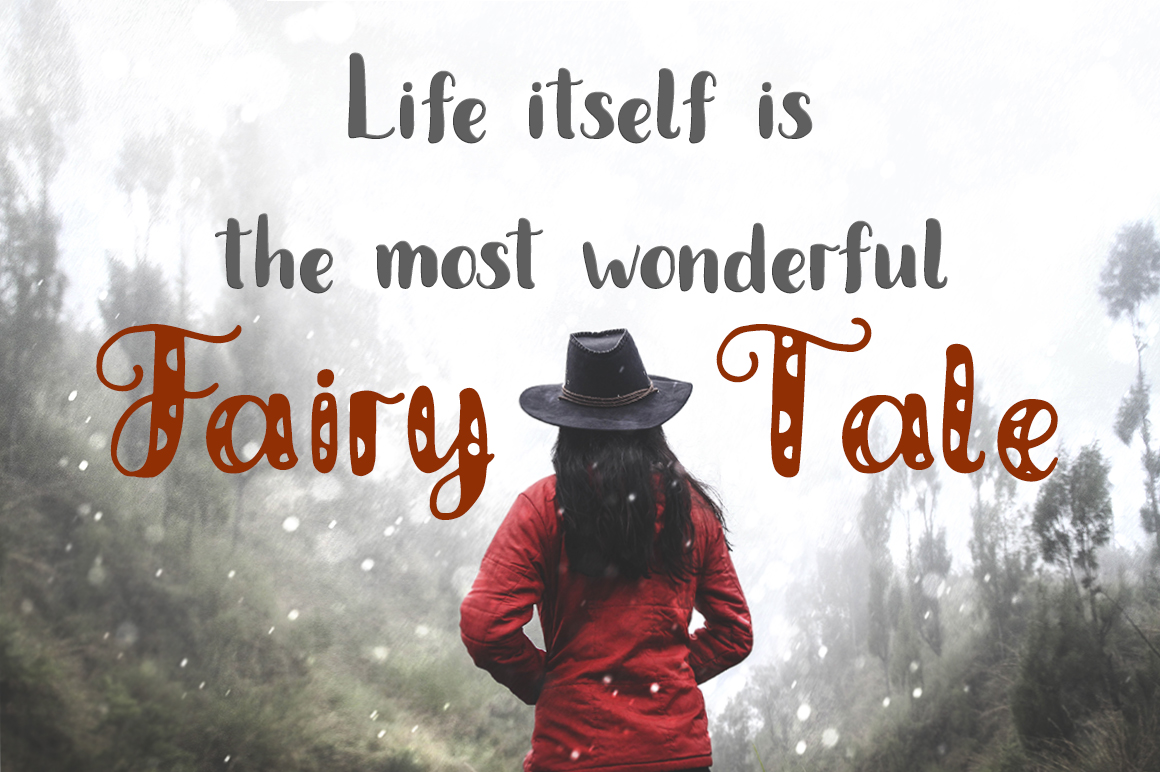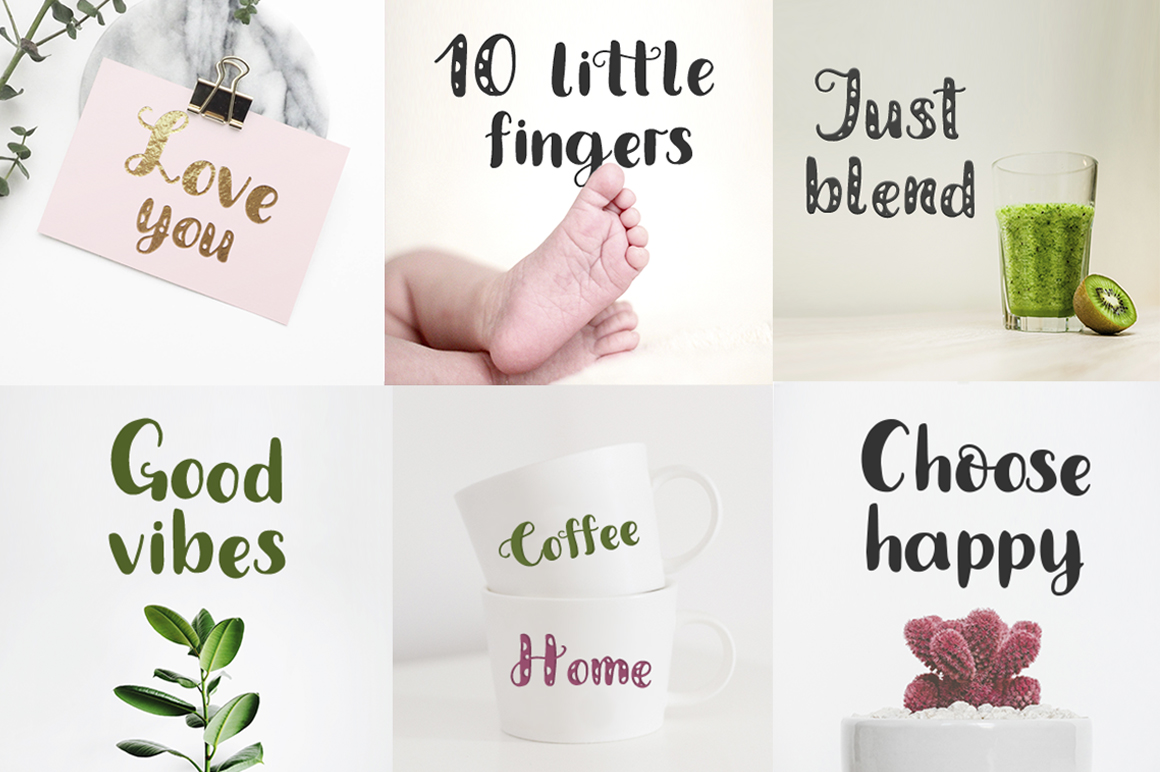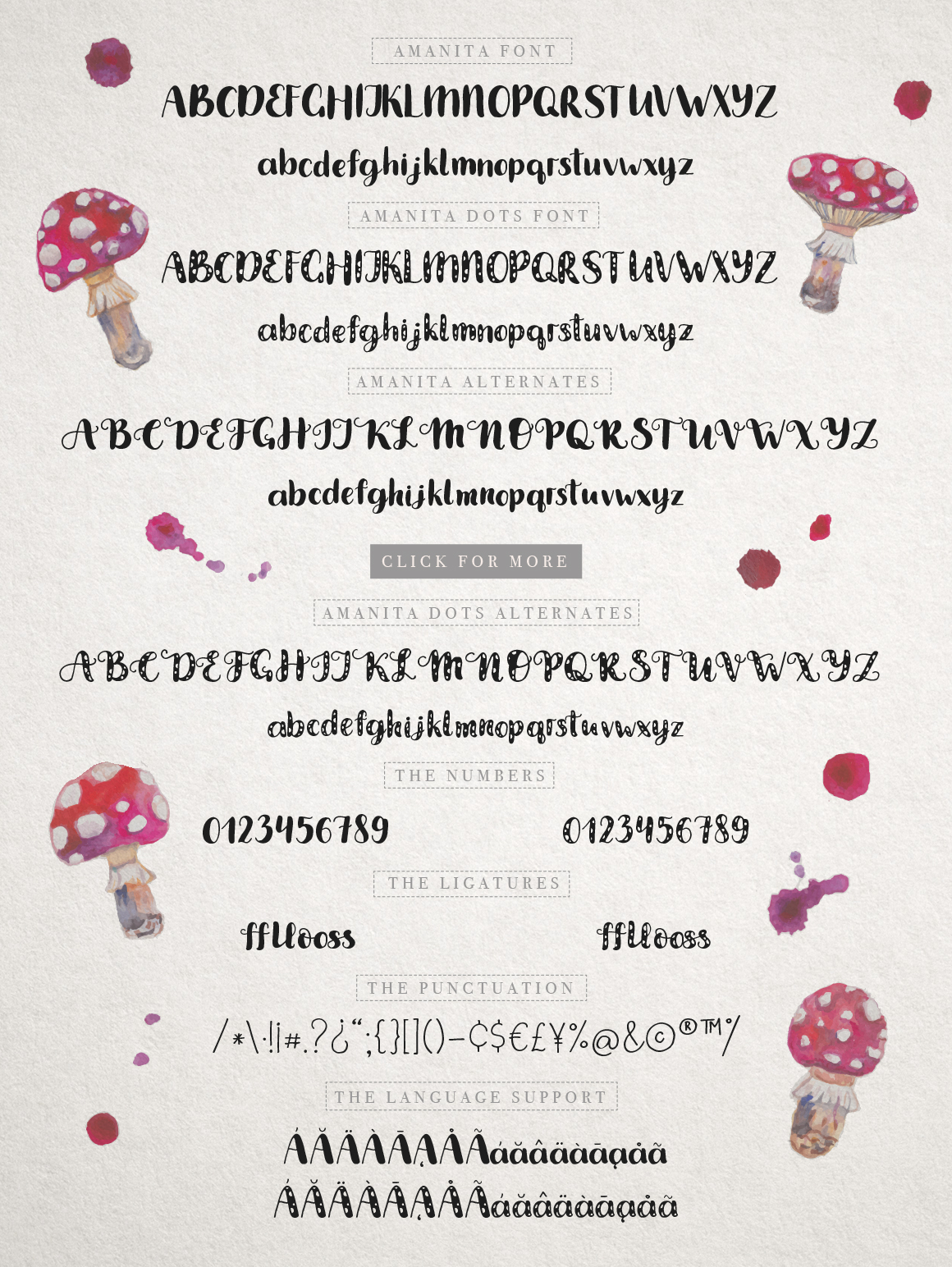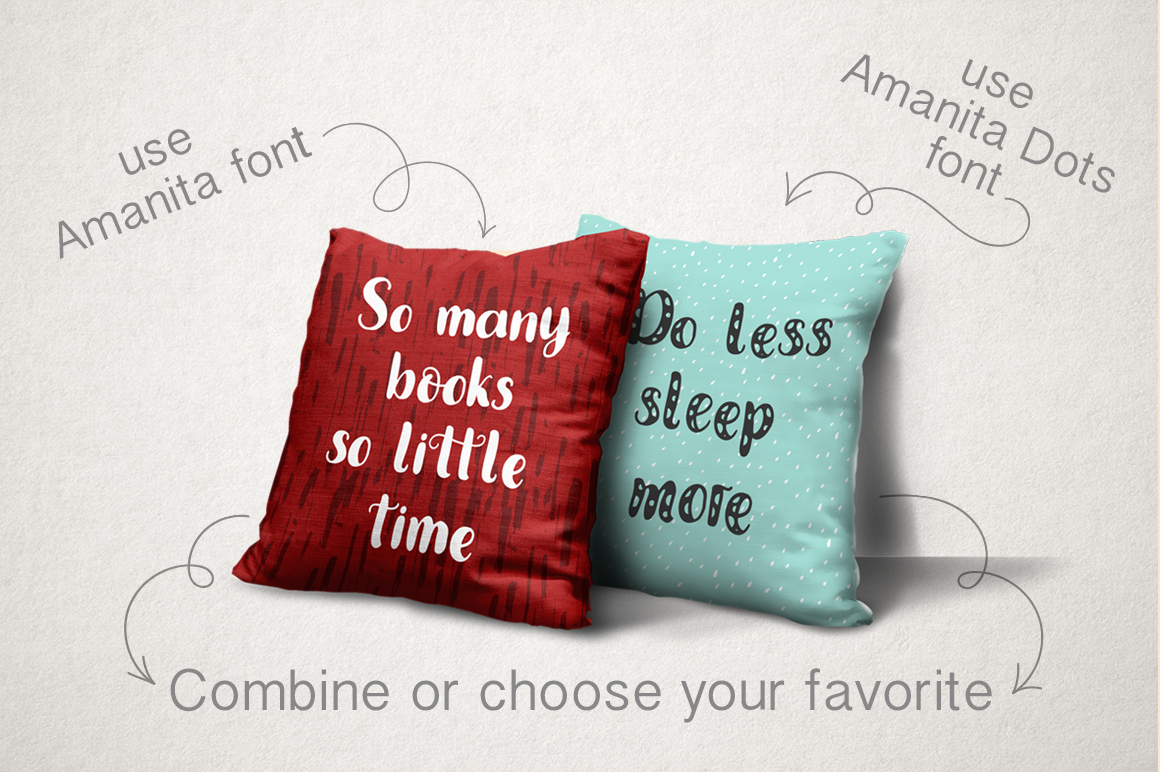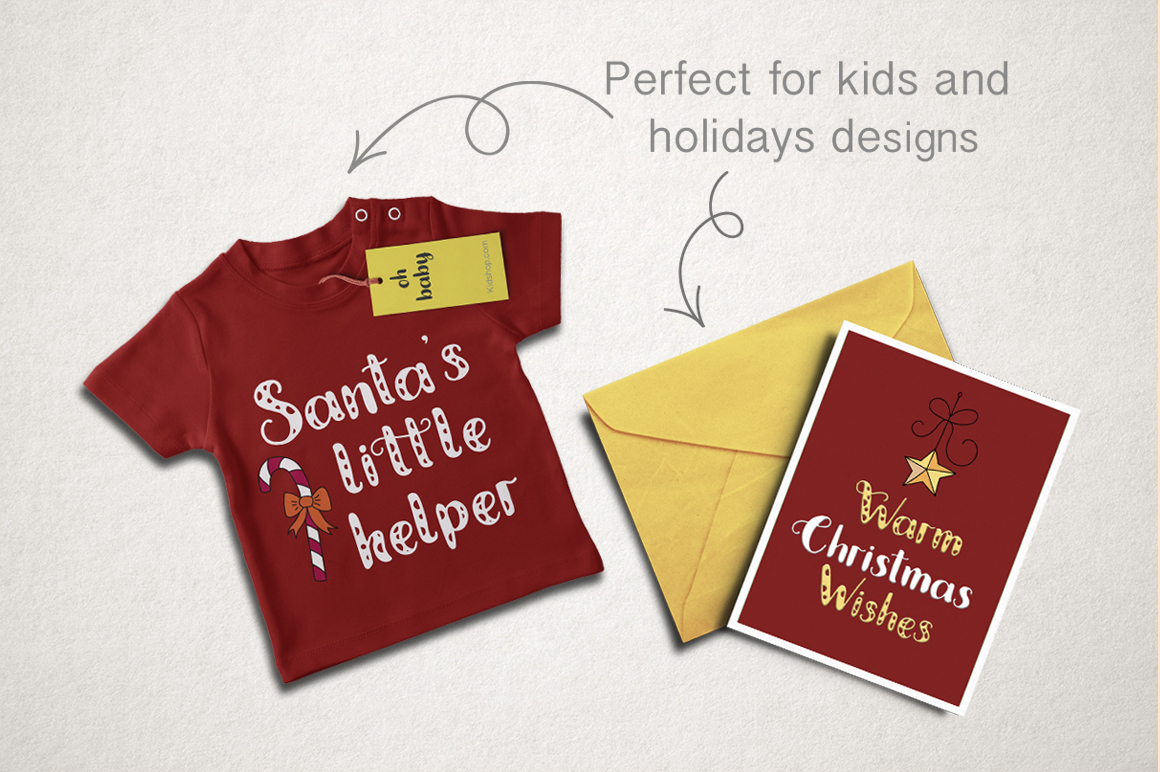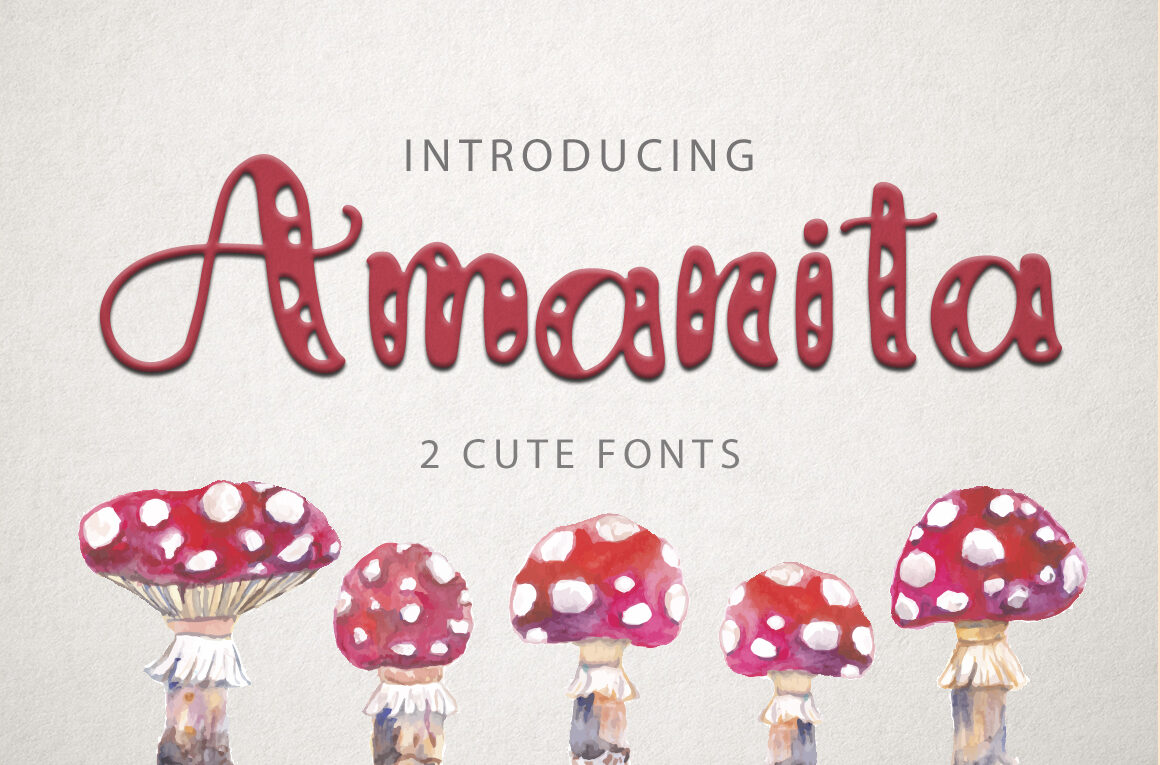
Amanita Font: A Fun and Whimsical Typeface Inspired by Nature
Are you a designer or crafter looking for a unique and playful font to add some personality to your projects? Look no further than the Amanita Font family, which includes the delightful Amanita Dots and clean Amanita fonts. These charming typefaces are inspired by the iconic Amanita mushrooms, bringing a touch of whimsy and fun to your designs.
Amanita Dots Font: A Playful and Decorative Typeface
Amanita Dots font is a one-of-a-kind typeface that immediately captures attention with its cute decorative circles, reminiscent of Amanita mushrooms. This font is perfect for designers and crafters who want to add a playful and eye-catching element to their projects. The dots that adorn each letter create a sense of movement and energy, making Amanita Dots font ideal for fun and creative designs.
Whether you’re working on a children’s book, a whimsical logo, or a playful poster, Amanita Dots font is sure to bring a smile to your audience’s faces. Its unique and quirky style makes it perfect for projects that require a dash of personality and charm. For example, you could use Amanita Dots font to create a custom sign for a children’s play area or a fun and colorful label for a product packaging.
Amanita Font: A Clean and Versatile Typeface
While Amanita Dots font is a showstopper on its own, the clean version of the font, simply called Amanita font, offers a more subtle and elegant take on the original design. This font is perfect for designers who want to incorporate the Amanita charm into their projects without the decorative dots. Amanita font is a versatile typeface that can be used for a wide range of applications, from headings and titles to body text.
Amanita font pairs perfectly with Amanita Dots font, allowing you to mix and match the two to create visually appealing and engaging designs. The clean lines and simple shapes of Amanita font make it easy to read and understand, making it suitable for projects that require a clear and concise message. For instance, you could use Amanita font for a blog post or article about nature, gardening, or outdoor activities.
Design and Crafting Applications
Both Amanita Dots and Amanita fonts are perfect for a variety of design and crafting applications, including:
- Digital design: Use these fonts to create engaging social media graphics, blog posts, and website content.
- Print design: Add a touch of whimsy to your brochures, flyers, posters, and business cards.
- Crafting: Use these fonts to create custom signs, labels, and decorations for your craft projects.
- Handmade products: Add a personal touch to your product labels, packaging, and branding.
Tips for Using Amanita Font
To get the most out of Amanita Font, here are some tips to keep in mind:
- Mix and match: Combine Amanita Dots and Amanita fonts to create visually appealing and engaging designs.
- Experiment with colors: Play with different colors and textures to add depth and interest to your designs.
- Keep it simple: Don’t be afraid to use Amanita font on its own – its clean lines and simple shapes make it easy to read and understand.
In conclusion, Amanita Font is a fun and whimsical typeface that’s perfect for designers and crafters looking to add some personality to their projects. With its cute decorative circles and clean lines, Amanita Dots and Amanita fonts offer a unique and versatile way to bring a touch of nature-inspired charm to your designs. Whether you’re working on a digital project or a handmade craft, Amanita Font is sure to delight your audience and bring a smile to their faces.